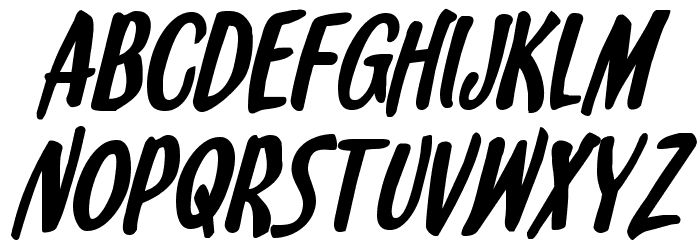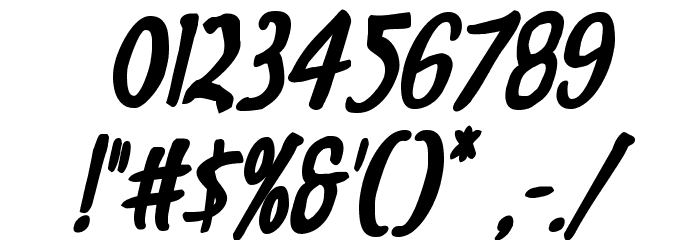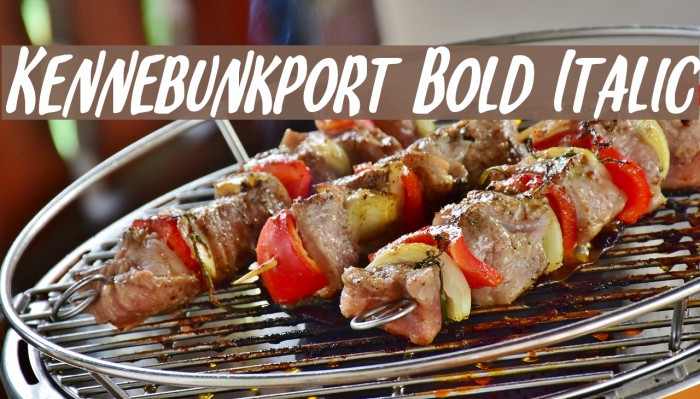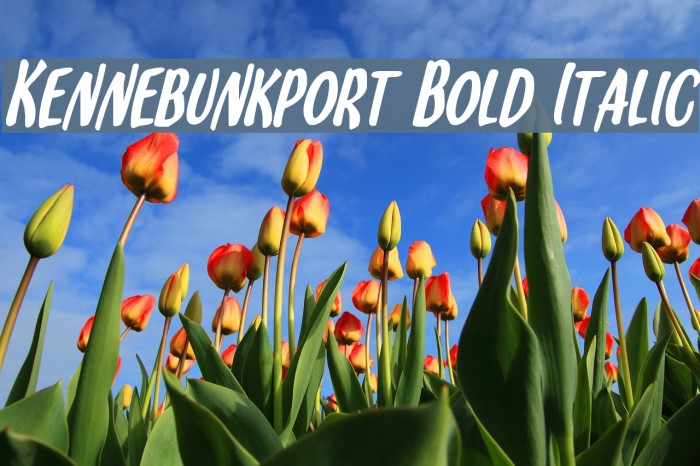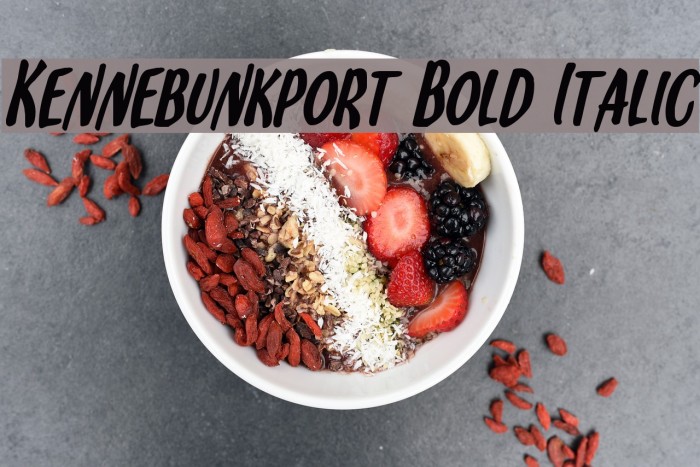
Kennebunkport Bold Italic Font
This font features a bold and italicized style with a handwritten appearance. The characters are dynamic and fluid, giving a sense of motion and energy. The uppercase and lowercase letters maintain a consistent slant, enhancing the italic effect. The numbers and special characters are designed to match the overall style, with a playful yet assertive look. The strokes are thick, contributing to the boldness, while the slight variations in line thickness add a touch of uniqueness. This font is ideal for projects that require a personal and informal touch, while still maintaining clarity and impact.
A bold, italic, handwritten-style font with dynamic and fluid characters.
- Proposed Projects: Ideal for posters, branding, packaging, and any design requiring a bold, personal touch.